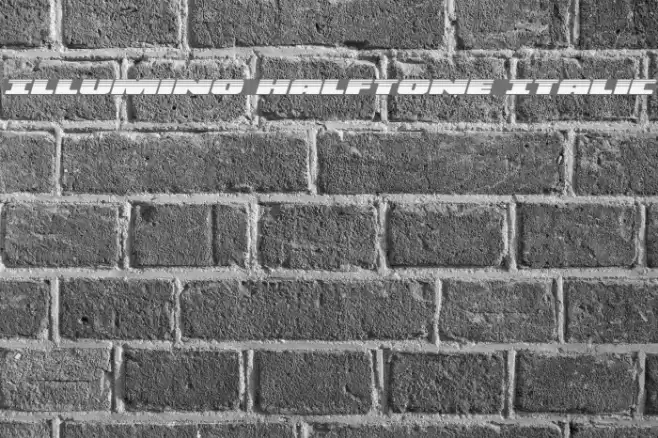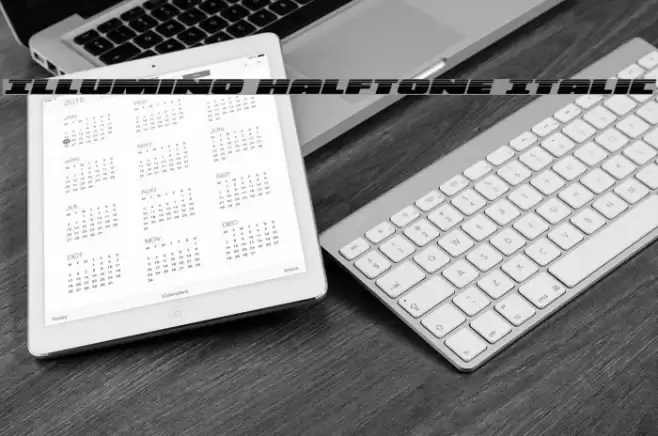
Illumino Halftone Italic Font
Illumino Halftone Italic Description
This font features a bold, futuristic design with a distinct halftone effect that gives it a dynamic and energetic appearance. The characters are italicized, adding a sense of motion and speed. Each letter is constructed with a series of horizontal lines that create a unique visual texture, reminiscent of digital or technological themes. The font is highly stylized, making it ideal for projects that require a modern and edgy aesthetic. Its bold weight and expanded width ensure strong visibility and impact, making it suitable for attention-grabbing headlines or logos.
A bold, italicized font with a futuristic halftone effect, ideal for modern designs from Sci-fi fonts.
- Proposed Projects: Ideal for technology-themed posters, sci-fi book covers, video game titles, and futuristic branding.
- Width: Expanded